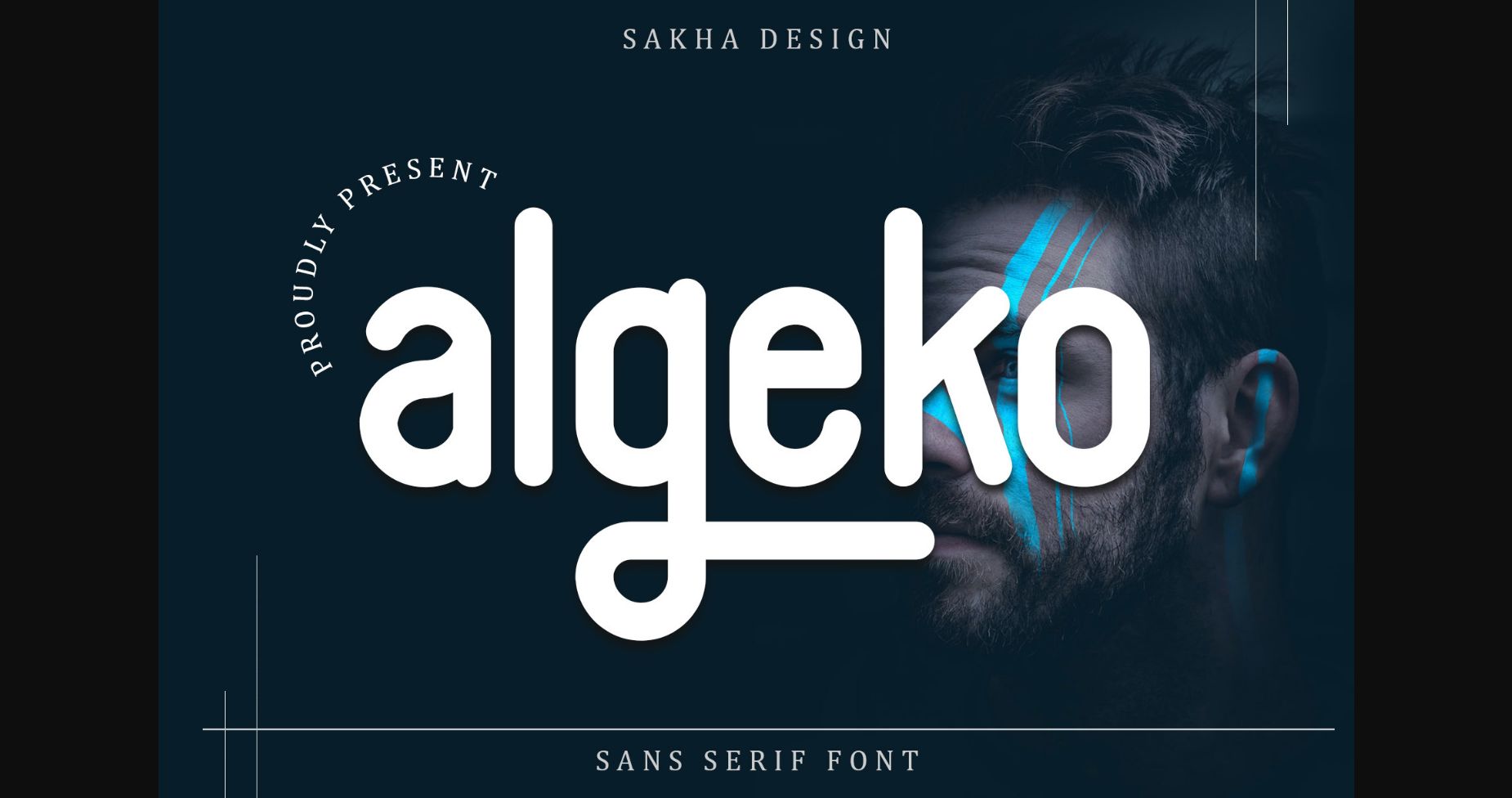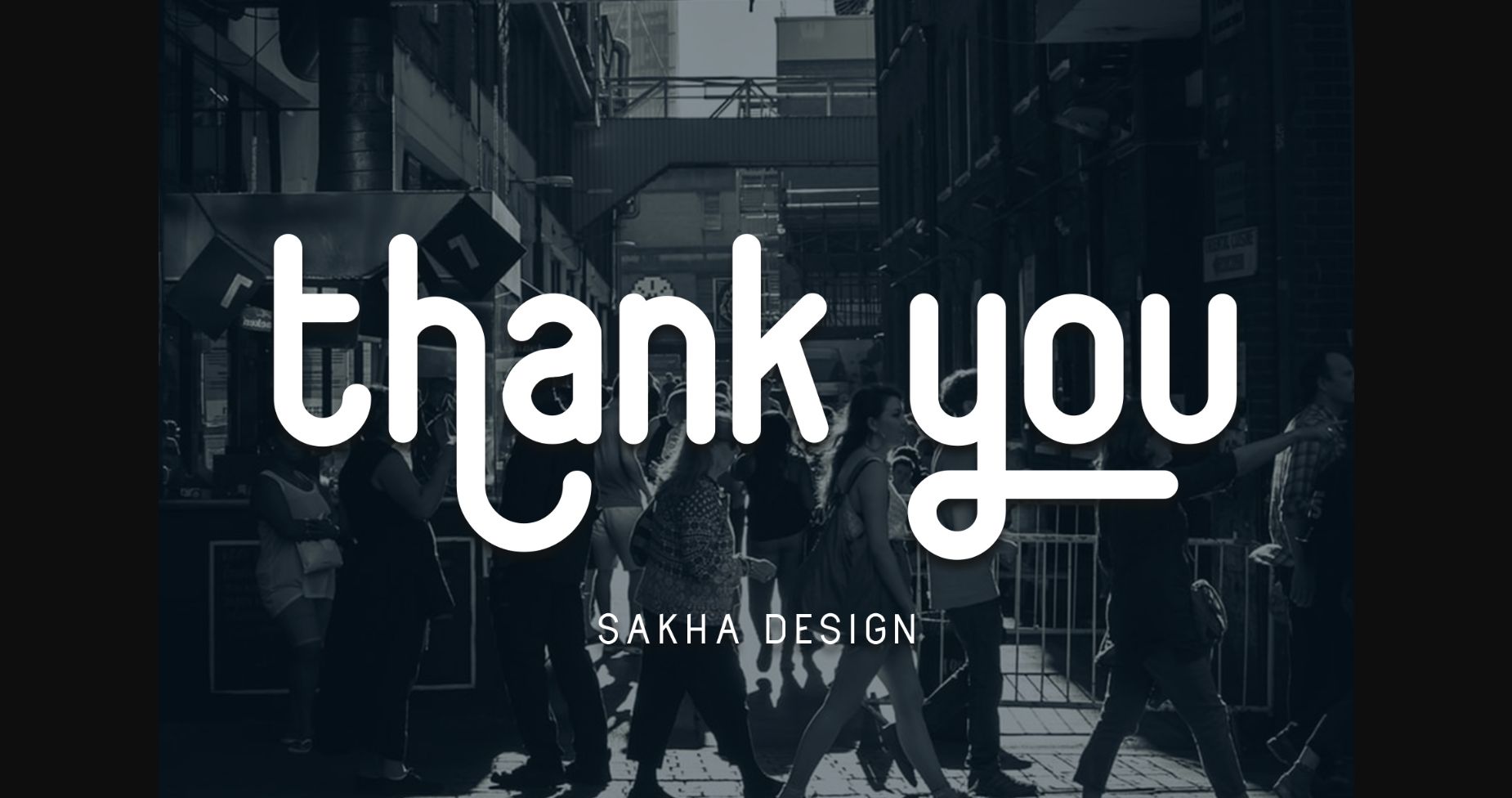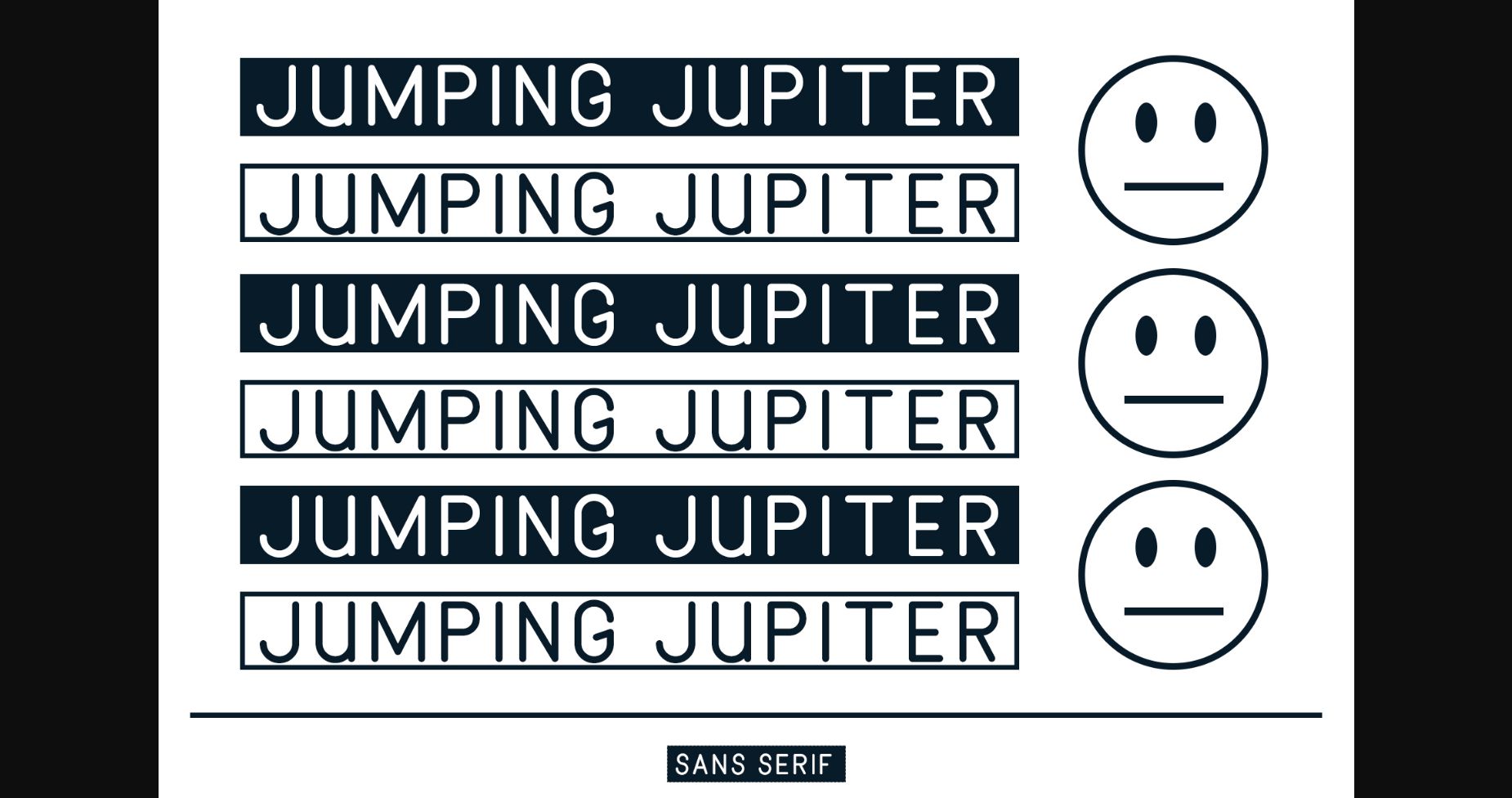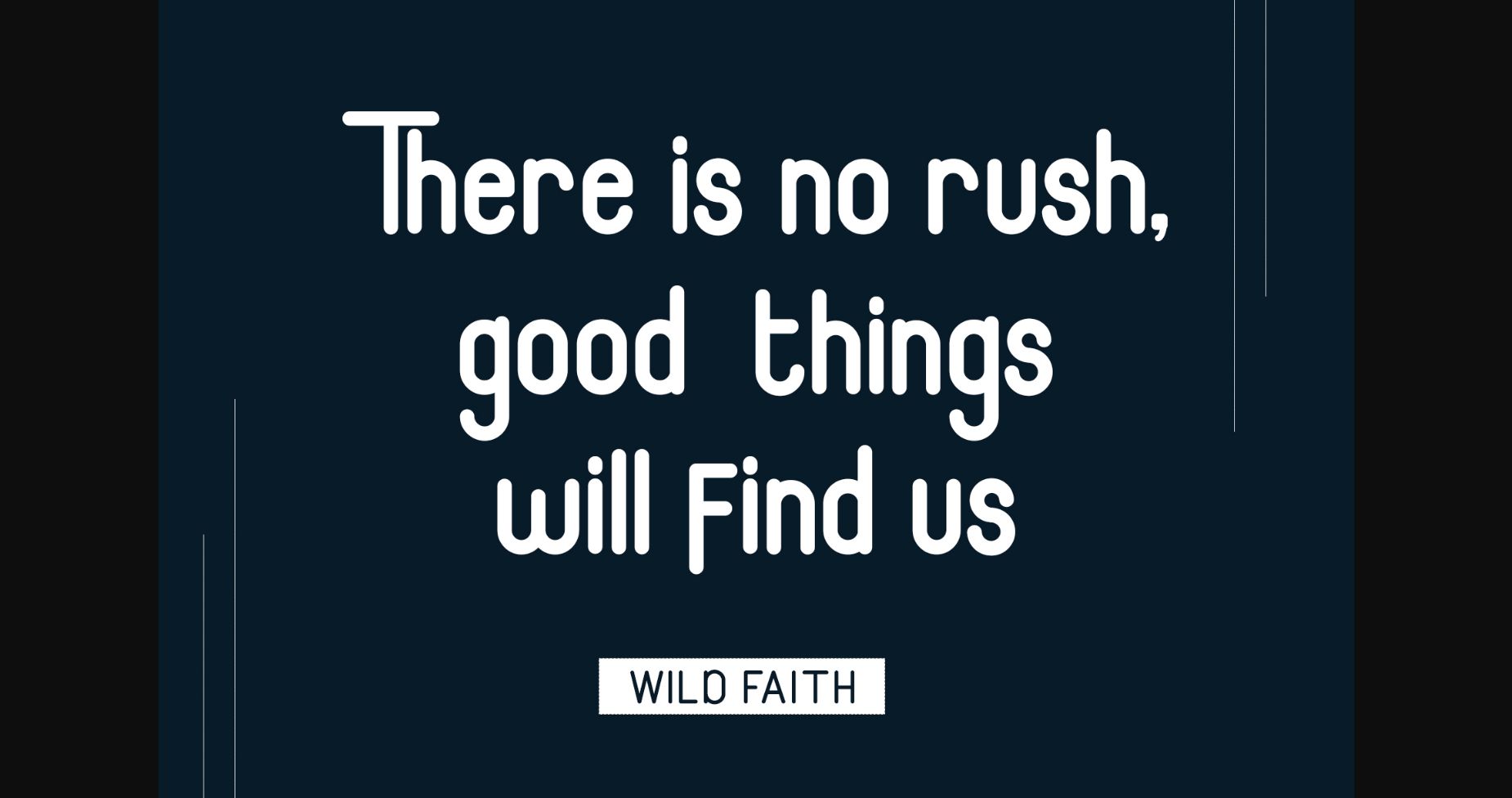
About Algeko Font
Algeko is a simple, adaptable and vintage syled sans serif font. Add it confidently to your favorite creations and let yourself be amazed by the outcome generated.